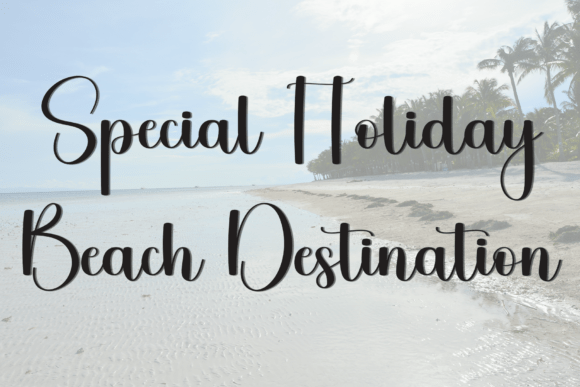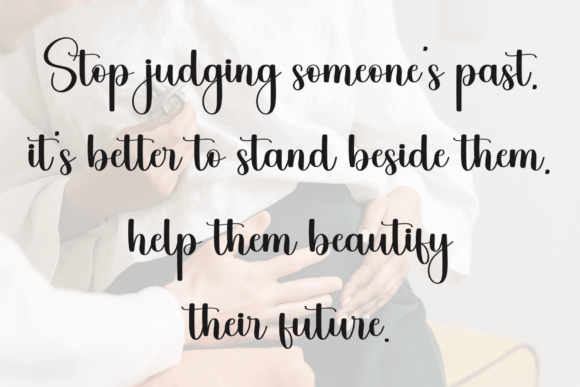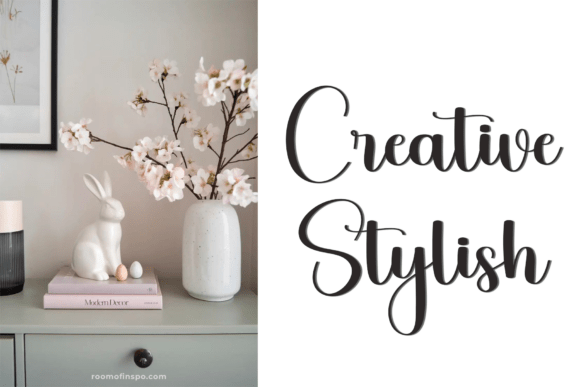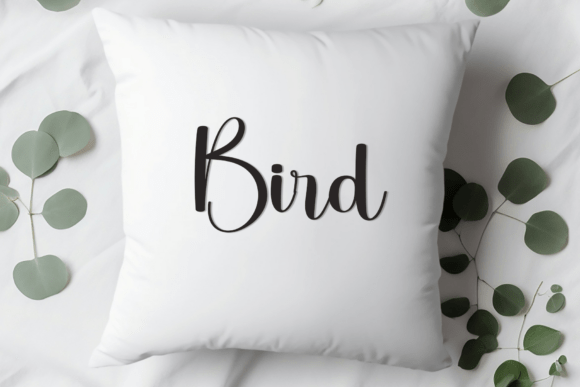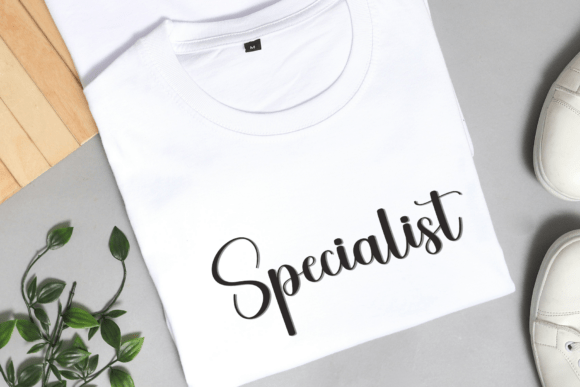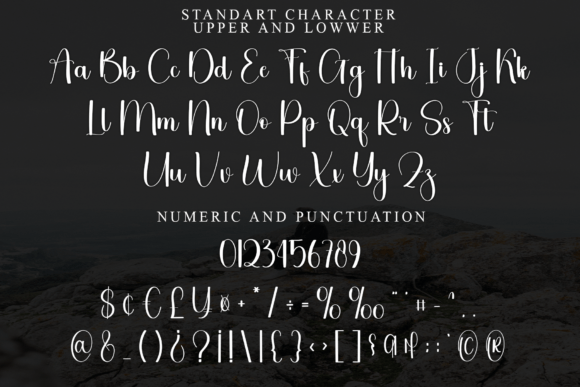
Introducing Handmade Creation Font: Elevate Your Designs with a Unique Touch
In the world of design, typography plays a crucial role in conveying messages, evoking emotions, and creating a lasting impression. For designers, crafters, and creative enthusiasts, finding the perfect font can be a daunting task. However, if you’re looking for a font that stands out from the crowd, look no further than the Handmade Creation Font. This beautiful, eye-catching font is designed with a soft, unique touch that is sure to elevate your designs and make them shine.
The Distinctive Character of Handmade Creation Font
Handmade Creation Font boasts distinctive strokes that give it a special character, making it both meaningful and versatile for future use. Its unique design ensures that your creative projects, whether they’re design projects, crafts, or other artistic endeavors, will have a personal touch that resonates with audiences. The font’s natural style is perfect for a wide range of products, including branding, packaging, and marketing materials.
Endless Possibilities with Various Characters
One of the standout features of Handmade Creation Font is its extensive range of characters. This means you have a vast array of options at your disposal, allowing you to experiment with different styles, tones, and themes. Whether you’re working on a logo, a poster, or a digital project, this font provides the flexibility to bring your vision to life. The variety of characters ensures that your designs will always be fresh, engaging, and tailored to your specific needs.
For designers and crafters, finding a font that complements your work without overpowering it can be challenging. Handmade Creation Font is specifically designed to enhance your projects without dominating them. Its soft, unique touch adds a layer of sophistication and charm, making it perfect for a variety of applications, from handmade crafts and DIY projects to professional design work.
Why Choose Handmade Creation Font?
- Unique Design: Offers a soft, unique touch that sets it apart from more traditional fonts.
- Versatility: Suitable for a wide range of projects, from professional designs to personal crafts.
- Extensive Character Set: Provides a variety of characters for diverse design needs.
Enhance Your Designs with Handmade Creation Font
Whether you’re a professional designer, a crafter, or simply someone who loves to dabble in creative projects, Handmade Creation Font is an excellent addition to your toolkit. Its ability to add a personal, unique touch to your work means your designs will stand out in a crowded marketplace. Moreover, its broad compatibility ensures that you can use it across different projects and platforms without any issues.
Handmade Creation Font is more than just a typeface; it’s a creative tool that can transform your designs and projects. With its distinctive strokes, extensive character set, and cross-platform compatibility, it’s an ideal choice for anyone looking to add a special touch to their work. Whether you’re aiming to create visually stunning designs, engaging crafts, or any other form of creative expression, this font is sure to meet and exceed your expectations. So why wait? Explore the possibilities with Handmade Creation Font today and take your designs to new heights.